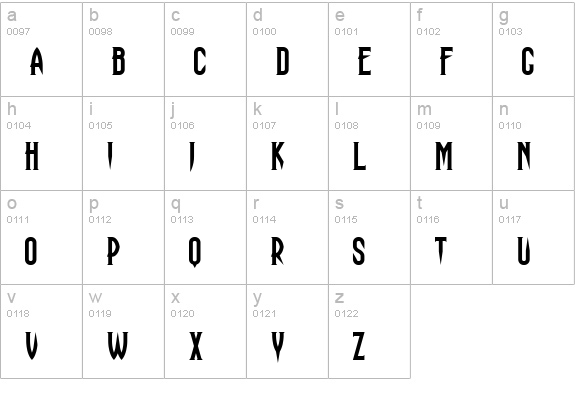
Haunting Attraction Font Details
Haunting Attraction font is an exquisite and captivating typeface that will send shivers down your spine. With its elegant yet eerie design, this font is perfect for adding a touch of mystique and intrigue to your projects. The Haunting Attraction font features delicate and elongated letterforms that seem to dance on the page, creating an ethereal and haunting atmosphere. Each letter is meticulously crafted to showcase an intricate balance between elegance and darkness, making it the ideal choice for designs that require a touch of gothic allure. This font's versatility knows no bounds, as it is suitable for a wide range of projects. Whether you're creating a spooky Halloween invitation, designing a chilling book cover, or adding a ghostly touch to your website, Haunting Attraction font will effortlessly capture the attention of your audience. The best part is that Haunting Attraction font is available for free! Yes, you read that right. This captivating typeface can be freely downloaded at FontsMarket.com. With just a few clicks, you can enhance your designs with the eerie charm of Haunting Attraction font, without spending a dime. So, why wait? Unleash your creativity and dive into the world of darkness and beauty with Haunting Attraction font. Download it for free at FontsMarket.com and let this hauntingly captivating typeface add an extra touch of allure to your designs.